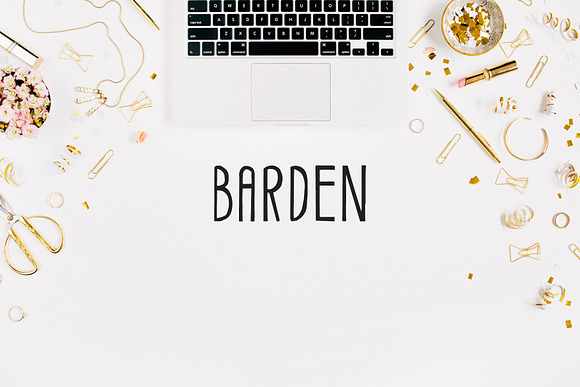
Barden Handmade Font
Barden Handmade Font is perfect for artisanal product labels, handcrafted business branding, craft workshop signage, organic food packaging, boutique logos, creative studio materials, authentic personal messaging, and genuine small business communications.
Barden Handmade Font is exciting because it captures the authentic charm of handcrafted artistry with organic letterforms and personal character details that create immediate emotional connection and genuine warmth. Its artisanal personality evokes feelings of authenticity and human touch that resonates perfectly with audiences seeking handmade quality and personal craftsmanship.
Barden Handmade Font family includes regular weight with natural variations, stylistic alternates, and handcrafted elements, providing designers with comprehensive options for creating authentic artisanal typography solutions that project personal craftsmanship and handmade quality.
Barden Handmade Font Free Download delivers premium handcrafted typography that embodies the essence of artisanal authenticity and personal touch. This charming typeface demonstrates exceptional attention to organic detail through its natural letterforms and handmade character construction that recreates genuine artisanal appeal without sacrificing modern functionality. The font's personal personality makes it particularly suitable for craft businesses, artisanal food brands, creative studios, and small enterprises seeking to establish authentic visual identity that connects with customers valuing handmade quality and personal craftsmanship.
Creative professionals consistently choose Barden Handmade Font for projects requiring artisanal authenticity and handcrafted appeal. Its organic character works magnificently in craft workshops, farmers markets, boutique businesses, and artisanal product branding where personal connection and handmade quality drive customer loyalty. The font's authentic nature creates memorable brand experiences that communicate care and genuine craftsmanship.
The Barden Handmade Font download package includes natural variations, stylistic alternates, and artisanal elements that enhance its handcrafted appeal and design versatility. This comprehensive collection ensures professional results in authentic branding projects requiring genuine handmade typography. The font performs exceptionally across both digital and print applications where its organic character and personal details create significant emotional connection and artisanal distinction.
Design teams appreciate Barden Handmade Font's ability to communicate genuine authenticity and personal craftsmanship in today's competitive marketplace. Its handcrafted styling transcends commercial trends while maintaining the personal touch required for artisanal positioning, making it an essential tool for organizations seeking to establish emotional connections through superior handmade typography and authentic personal communication.